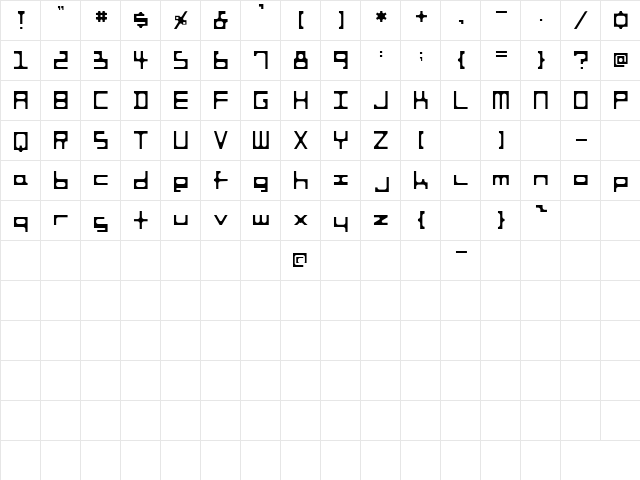
HOSHI Regular E.
Design Context for HOSHI Typeface
HOSHI offers clean, dependable letterforms without strong stylistic allegiance, making it a practical choice for designers who need flexibility.